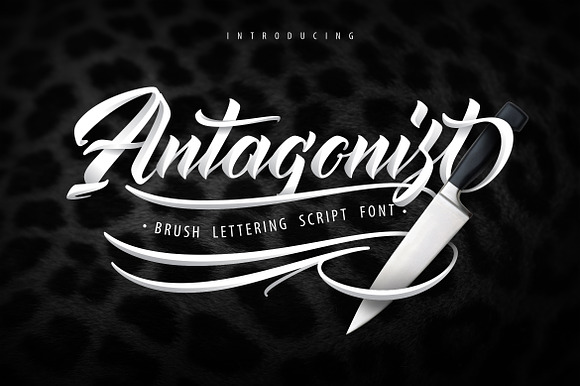
Antagonis Handcrafted Script Font
Antagonis Handcrafted Script Font by Vunira is a font selected for branding, posters, packaging, typography.
Why Antagonis Handcrafted Script Font is worth a look
Antagonis Handcrafted Script Font by Vunira fits naturally into Branding, posters, packaging, typography.